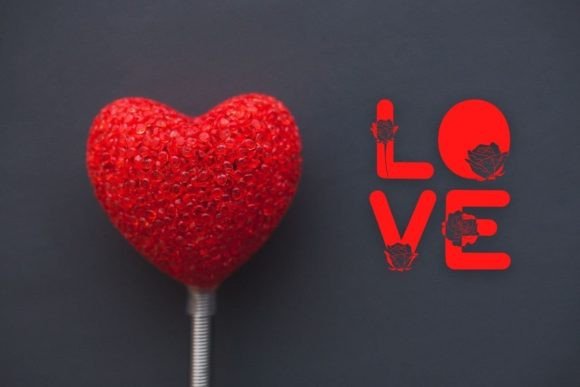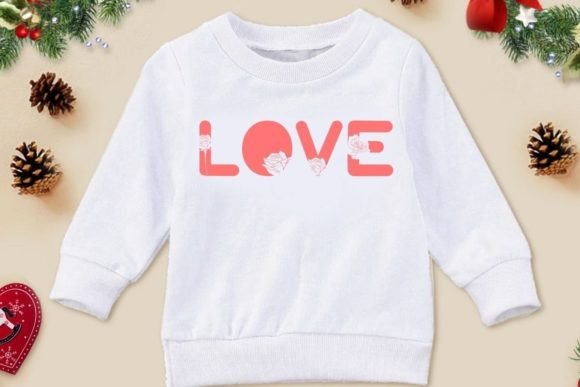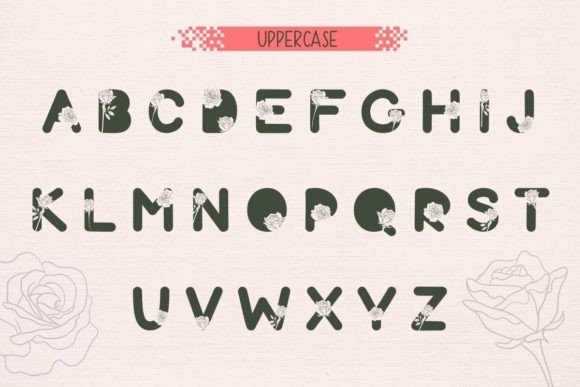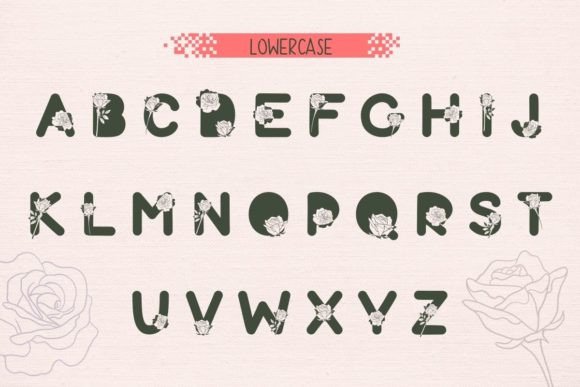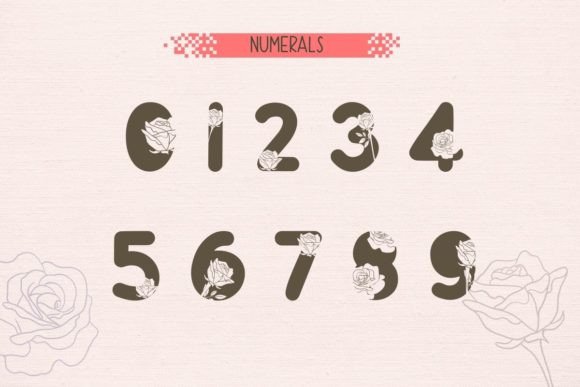
Introduction to Rose Flower Font
Have you ever stumbled upon a design that makes your heart skip a beat? Maybe it’s a beautiful wedding invitation or a social media post that perfectly captures the essence of love. For designers, finding the right font can make all the difference in bringing a creative project to life. That’s where the Rose Flower Font comes in – a charming display font that’s sure to add a touch of whimsy to any design.
With its delicate petals and elegant lines, the Rose Flower Font is perfect for creating beautiful stationary art, valentine cards, and wedding invitations. Whether you’re working on a high-end design project or just need a free download for a quick social media post, this font is a valuable resource that’s sure to impress. Plus, its transparent background makes it easy to customize and pair with any design element.
Key Features of Rose Flower Font
- High-quality design resource ideal for creative projects, including wedding invitations, floral arrangements, and more.
- Unique, hand-drawn design featuring intricate details and a delicate, feminine touch, perfect for adding a touch of elegance to any project.
Honest Review: Rose Flower Font
I recently had the chance to work with the Rose Flower Font, and I must say, it’s a lovely addition to any design project. One of the things I appreciate about this font is its high quality and attention to detail. The designer has clearly put a lot of thought into creating a beautiful, intricate design that’s perfect for a variety of creative projects.
- ✨ It’s incredibly versatile and can be used for everything from wedding invitations to product packaging.
However, there are a few limitations to consider. The font may not be suitable for smaller text sizes, and it can be a bit difficult to read in certain contexts. Additionally, the font’s intricacy can make it challenging to customize and edit.
Overall, I’m really impressed with the Rose Flower Font. It’s a beautiful, high-quality design resource that’s perfect for a variety of creative projects. While it may have a few limitations, I think it’s well worth considering for your next design project.
Use the Rose Flower Font as a design resource for your next creative project. This high-quality font is perfect for adding a touch of elegance to your designs. Experiment with different font sizes, colors, and styles to get the most out of this versatile font.
The Rose Flower Font is ideal for use in wedding invitations, floral arrangements, and other creative projects that require a touch of sophistication. You can also use it as a design element in free download resources, such as printable art and digital wallpapers.